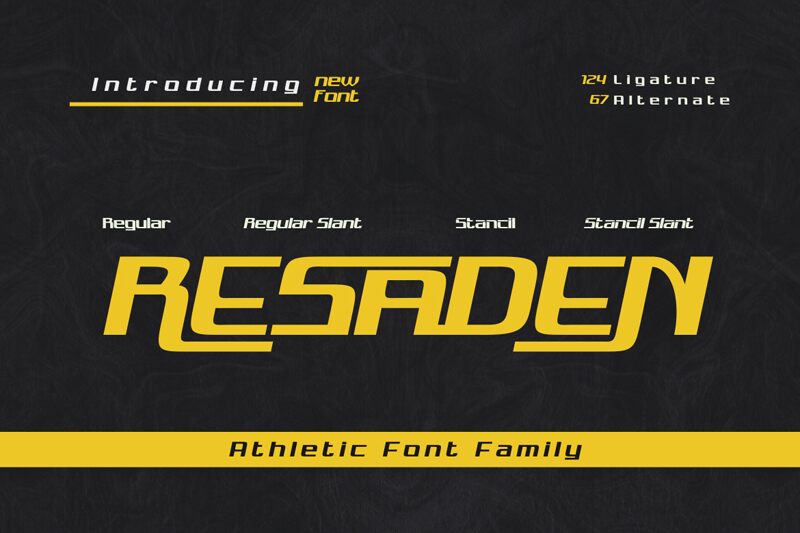
RESADEN Stancil
Resaden Stancil exudes a commanding presence with its expanded characters, crafted by Twinletter. This member of the Resaden font family brings a bold display type to the forefront, marrying modernity with an assertive stance. Each letter stands out with a generous width, offering designers a robust tool for creating impactful headlines and statements that demand attention.
Given its pronounced character and aesthetic appeal, Resaden Stancil finds its niche in contexts requiring visual strength-think of branding projects, poster designs, and any platform where type is not just read but felt. It's an ideal choice for those looking to make a lasting impression in their visual communications.